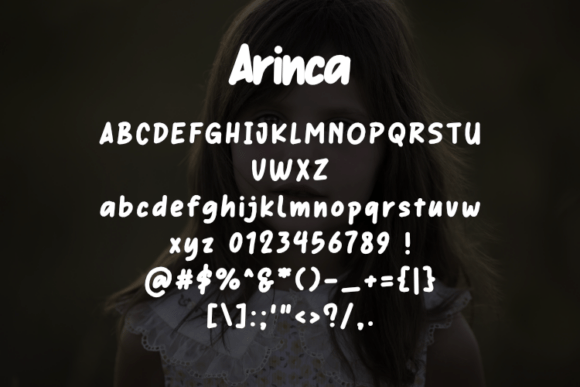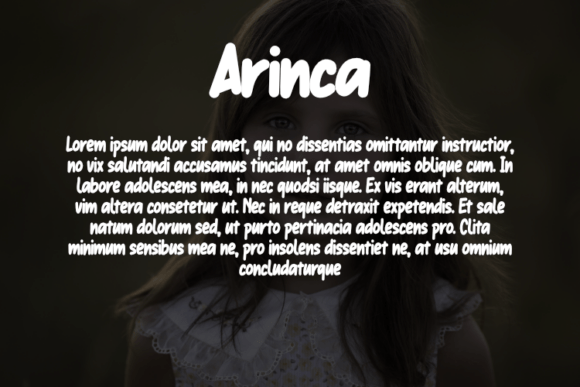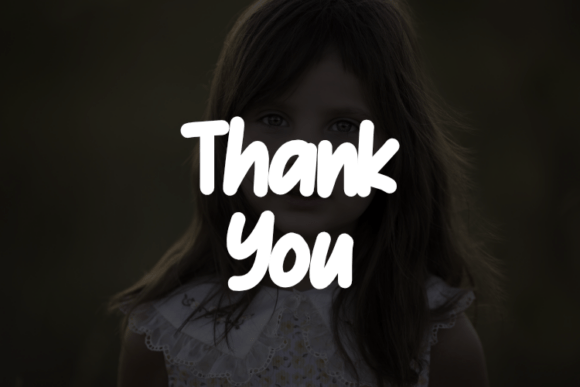
Unlock Your Design Potential with Arinca Font
Welcome to Arinca, your distinctive secret sauce to spruce up your design endeavors. Specifically catering to the realm of fashion design, from trendy tees to enchanting outfits, Arinca’s finesse will give your projects a standout aesthetic. Crafted to be universally compatible, it works seamlessly with all types of design software, ensuring a smooth design journey for you.
The Power of Typography in Fashion Design
Typography plays a crucial role in fashion design. It’s not just about choosing a font that looks good; it’s about conveying a message, creating a mood, and setting a tone for your brand. The right font can elevate your design, making it more engaging, memorable, and impactful. This is where Arinca Font comes in – a game-changer for designers and crafters looking to add a touch of elegance and sophistication to their work.
What Makes Arinca Font Special?
Arinca Font is more than just a typography; it’s an experience. Designed with the modern designer in mind, it boasts a range of features that make it an indispensable tool in your design arsenal. Here are a few reasons why Arinca Font stands out:
- Versatility: Arinca Font is incredibly versatile, making it perfect for a wide range of design projects, from fashion labels and t-shirt designs to social media graphics and more.
- Distinctive Aesthetic: Arinca Font has a unique charm that can instantly elevate your designs. Its distinctive aesthetic is perfect for designers looking to create standout pieces that capture attention and leave a lasting impression.
- User-Friendly: Despite its professional look, Arinca Font is incredibly easy to use, making it accessible to designers of all skill levels. Whether you’re a seasoned professional or just starting out, Arinca Font can help you achieve your design goals.
How to Use Arinca Font in Your Designs
- Pair it with Other Fonts: Arinca Font works well with other fonts, so feel free to get creative and find the perfect pairing for your project.
- Use it to Create a Focal Point: Use Arinca Font to create a focal point in your design, drawing attention to key information or messages.
Why Designers and Crafters Love Arinca Font
Arinca Font has quickly become a favorite among designers and crafters, and for good reason. Here are a few reasons why:
- Time-Saving: With Arinca Font, you can create professional-looking designs in no time, saving you hours of work and allowing you to focus on other aspects of your project.
- Consistency: Arinca Font helps ensure consistency across your designs, which is crucial for building a strong brand identity.
- Inspiration: Arinca Font can be a great source of inspiration, helping you to think outside the box and come up with fresh ideas for your designs.
In conclusion, Arinca Font is a powerful tool that can help take your fashion designs to the next level. Its versatility, universal compatibility, and distinctive aesthetic make it an indispensable asset for any designer or crafter. Whether you’re looking to create trendy tees, enchanting outfits, or anything in between, Arinca Font is the perfect choice. So why wait? Unlock your design potential with Arinca Font today and discover a world of limitless creativity.